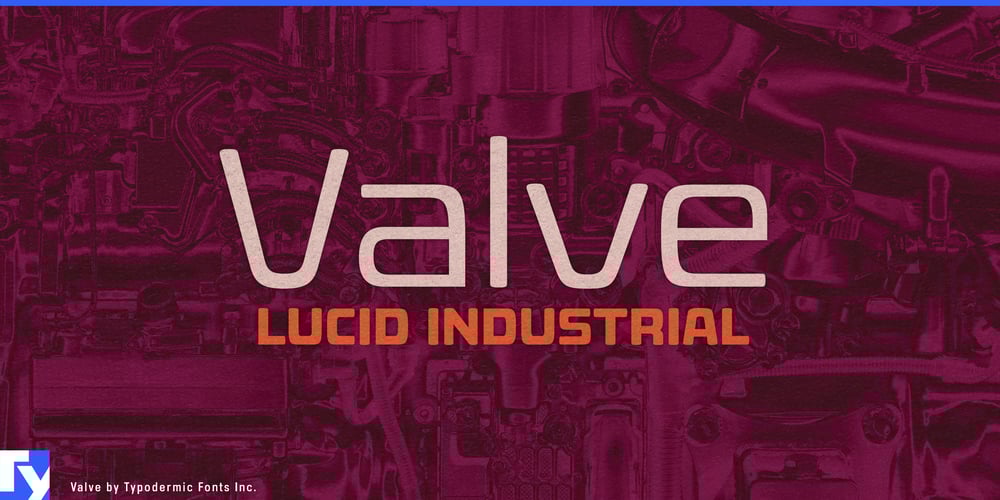
Valve Font Family was designed by Ray Larabie and published by Typodermic. Valve contains 10 styles and family package options. Valve: where precision meets innovation in typography. This industrial-strength typeface harnesses the power of superelliptical forms and pragmatic stroke logic to deliver a truly cutting-edge design experience. Engineered for the modern age, Valve speaks fluently in the visual language of plastics, pharmaceuticals, electronics, and alternative energy sectors.At first glance, Valve’s android-like letterforms might appear coldly efficient, but a closer look reveals its subtle sophistication. Soft stroke ends provide an unexpected touch of elegance, creating a perfect balance between mechanical precision and refined aesthetics. This duality makes Valve an ideal choice for a wide range of applications—from sleek tech brochures to futuristic web interfaces. Unlike typefaces that lean on retro-futuristic nostalgia, Valve is unapologetically synthetic. Built from the ground up using purely artificial elements, it eschews historical references in favor of forward-thinking design. This makes Valve the perfect typographic companion for brands and projects that are shaping tomorrow’s world.Valve’s versatility extends beyond its appearance. With OpenType fractions, numeric ordinals, and an extensive array of currency symbols, it’s ready to tackle complex typesetting challenges across global markets. Available in five carefully calibrated weights—Extra-Light, Light, Regular, Bold, and Heavy—along with a set of dynamic obliques, Valve offers the flexibility to fine-tune your message for maximum impact. But Valve’s reach goes far beyond the expected. Its comprehensive character set supports an impressive range of Latin-based European writing systems, from Afrikaans to Zulu. This linguistic versatility ensures that your ultramodern designs can resonate with audiences across continents, breaking down communication barriers just as it breaks new ground in typography.Embrace the future of design with Valve. Get it now and experience how this meticulously crafted typeface can elevate your projects from ordinary to extraordinary. With Valve, you’re making a statement about precision, innovation, and the power of forward-thinking design.